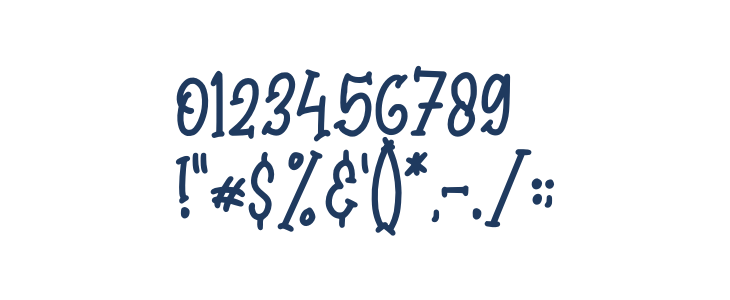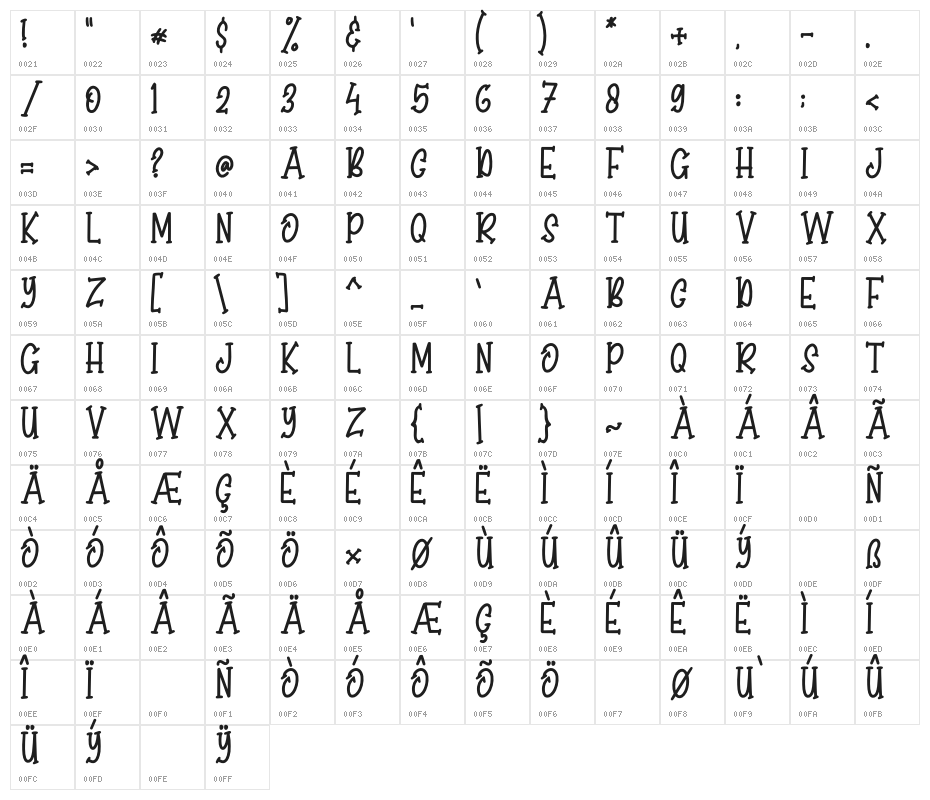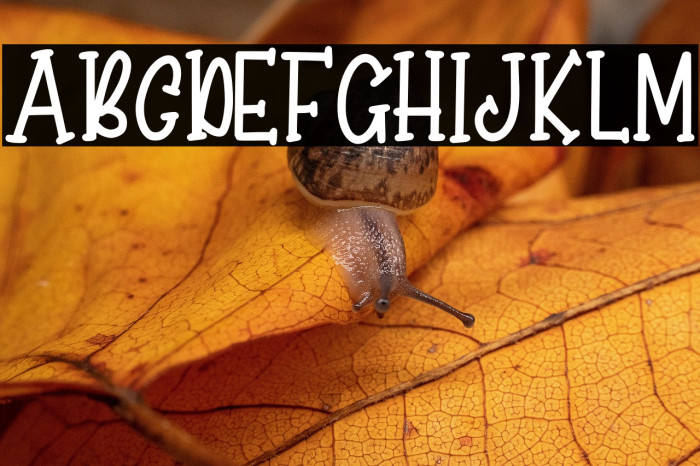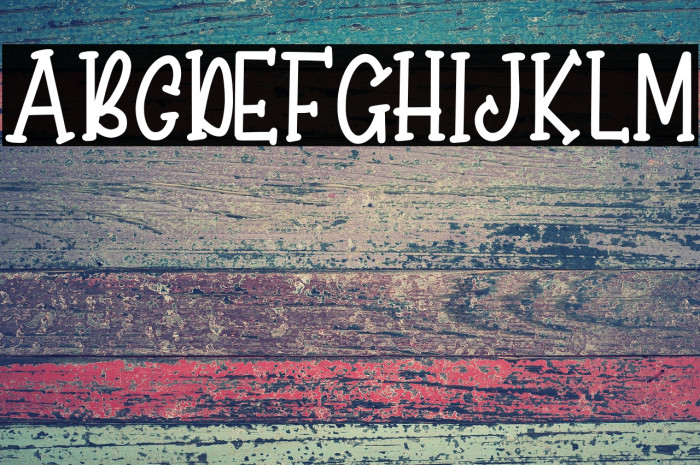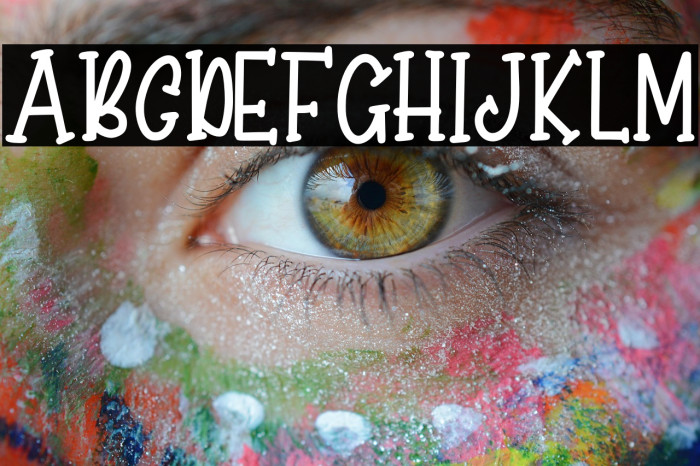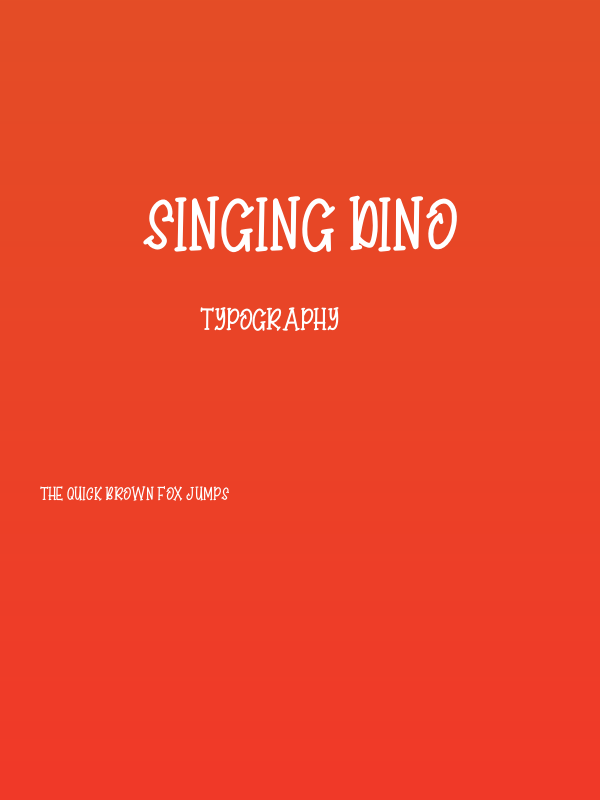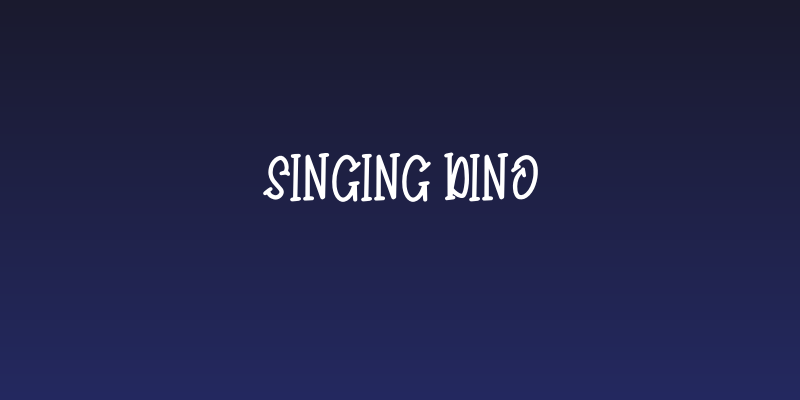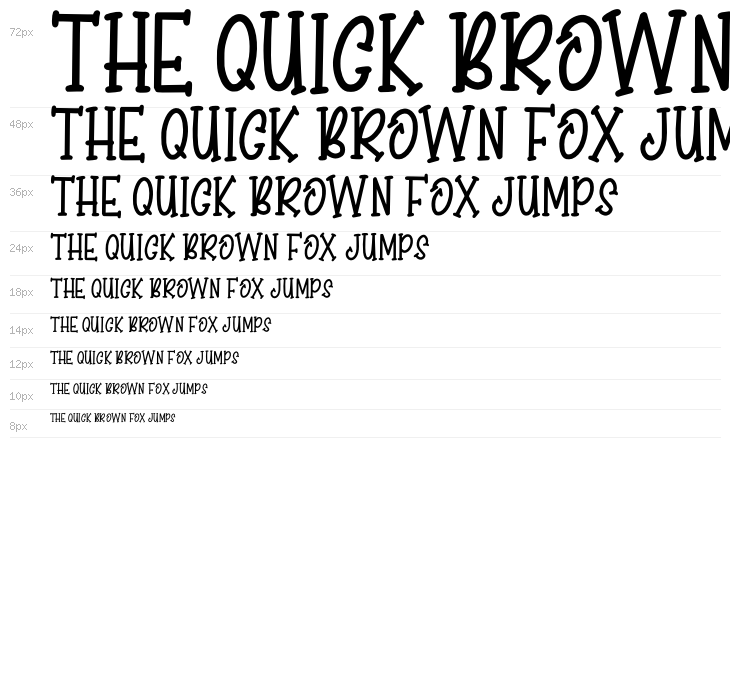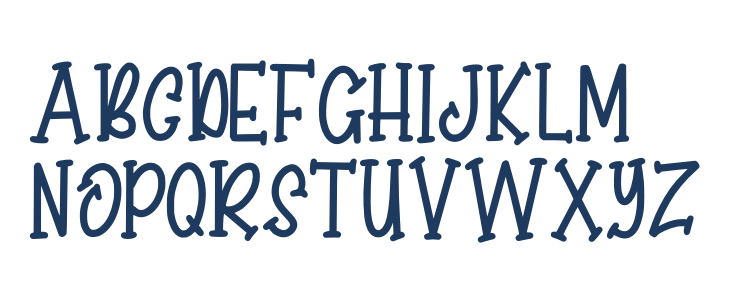
Singing Dino Font
Singing Dino Description
This playful and energetic font features a handwritten style with a whimsical flair. The letters are bold and slightly irregular, giving them a lively and dynamic appearance. The uppercase and lowercase characters maintain a consistent style, with rounded edges and a slight slant that adds to the casual, friendly feel. Numbers and special characters are crafted with the same playful touch, making them perfect for creative projects. The font's unique personality makes it ideal for designs that aim to capture attention and convey a sense of fun and creativity.
| Proposed Projects | Ideal for children's books, playful branding, greeting cards, and creative posters. |